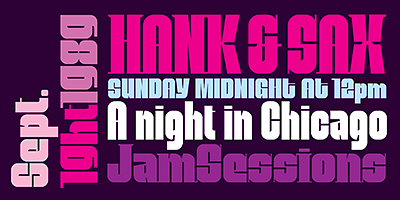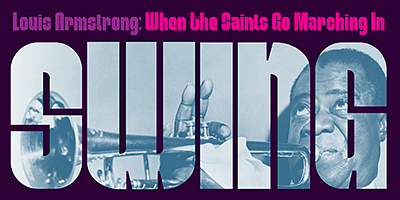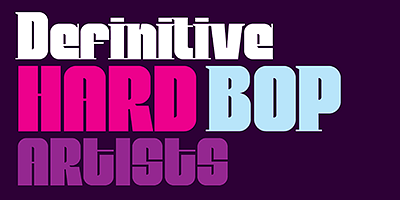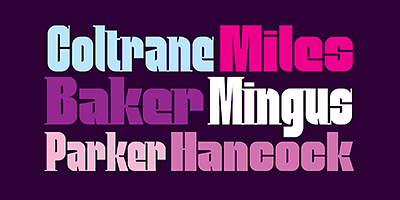
Based on ten characters found on the cover of a 1960s Blue Note jazz album. The source characters were originally designed for film-based typesetting by Wayne Stettler as part of a single typeface published by Visual Graphics Corporation (VGC) under the name Neil Bold. Mobley Sans, along with its condensed and serifed counterparts, constitute a brand new typographic whole molded around the original inspirational source. The family embodies the independent creative spirit of that era - yet manages to remain contemporary with several modern design traits - creating its own unique visual theme through the use of odd counters, generous curves and sharp corners. Mobley delivers your message in a bold, yet friendly, and subtly discerning fashion. Perfect for music artwork, packaging and book covers. Available with both sans and serif versions, in regular and condensed widths.